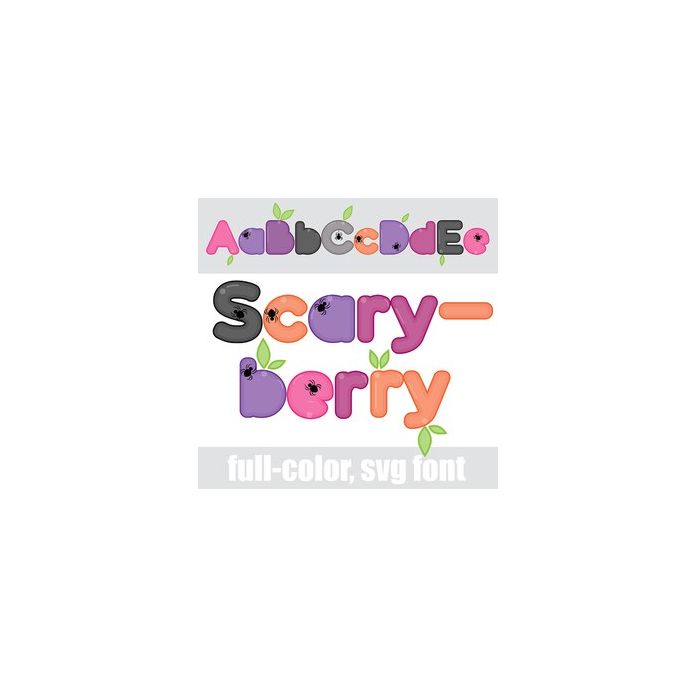
This full-color font features a fun Halloween color palette in berries with green leaves and little spiders. There is an alt case w/ additional colors you can access through your system or Silhouette's glyph map.